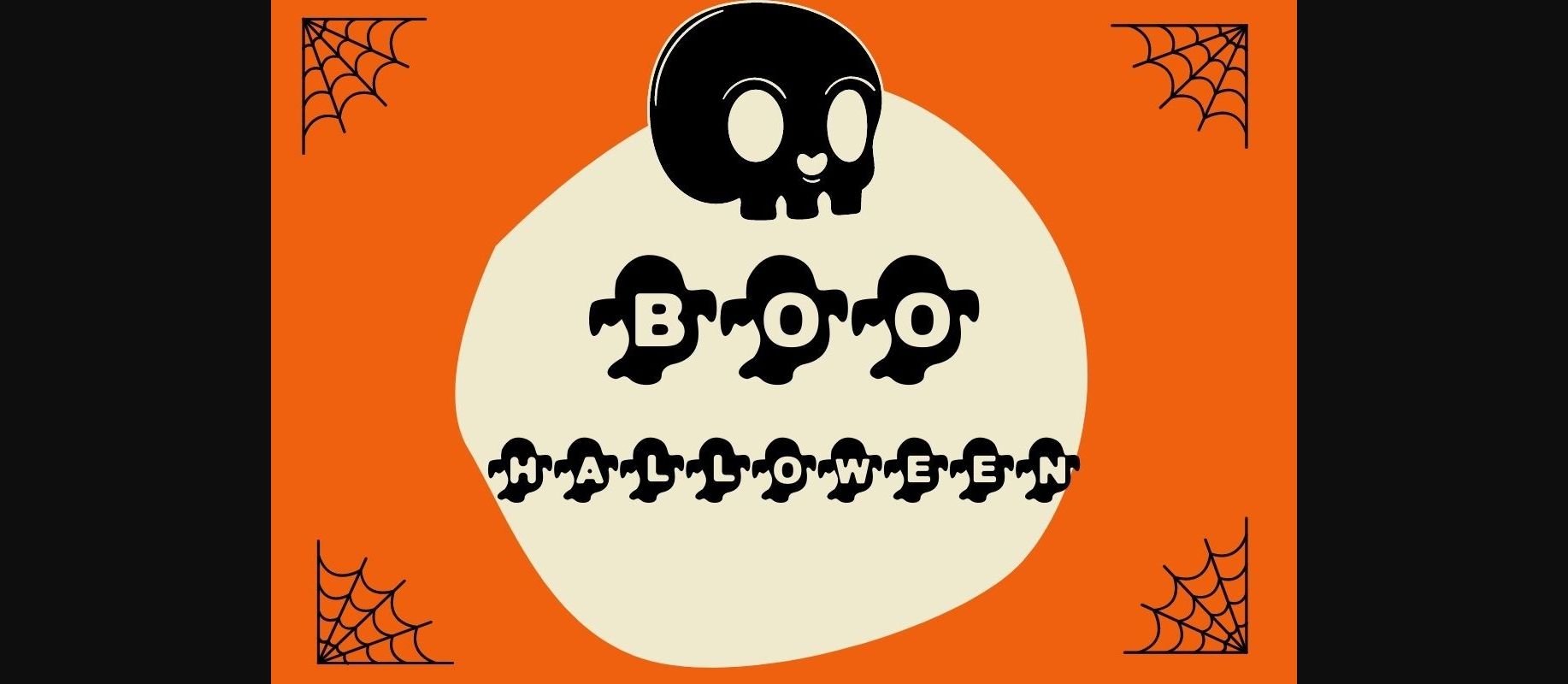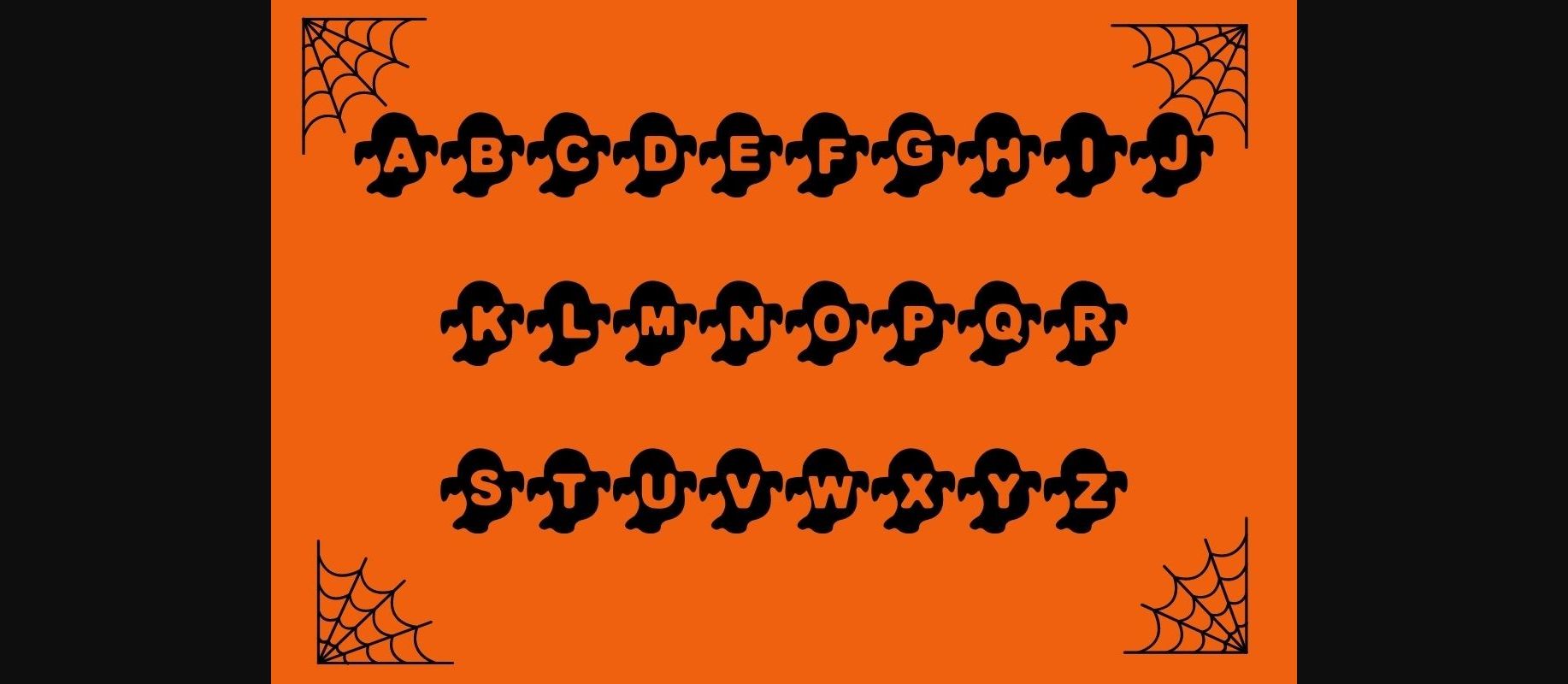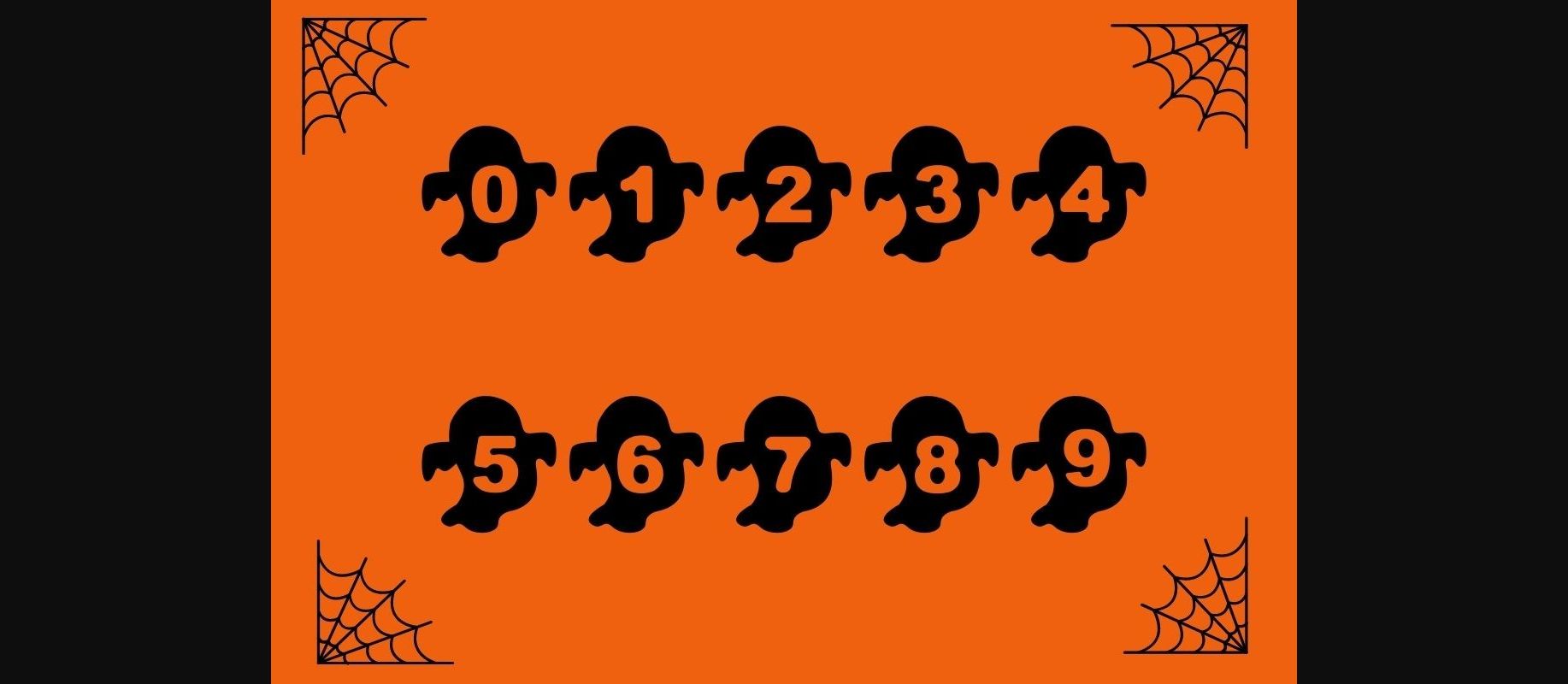
Boo Ghost Halloween Font
About Boo Ghost Halloween Font
Boo Ghost Halloween is a cool and creepy decorative font. Add it confidently to your favorite creations and let yourself be amazed by the outcome generated.